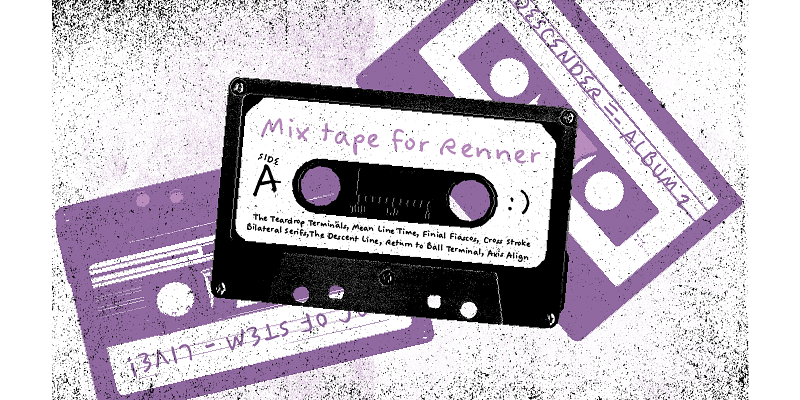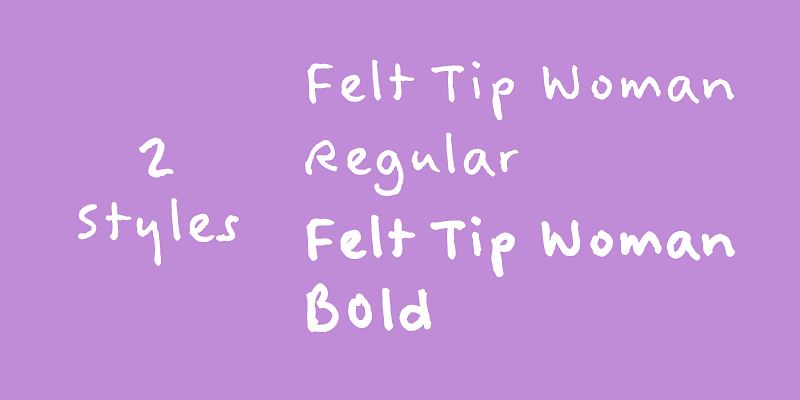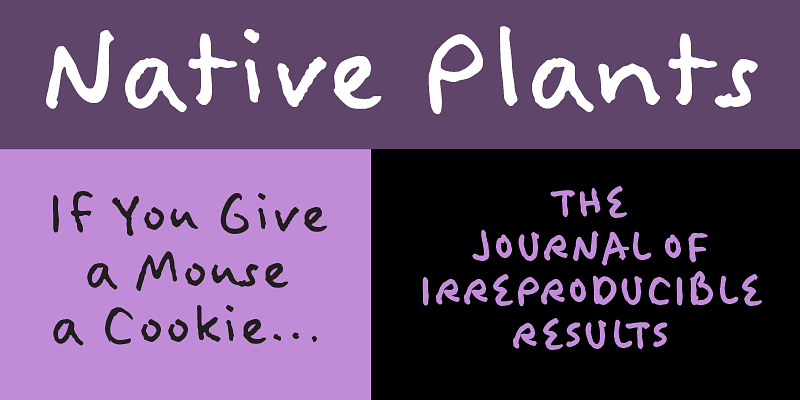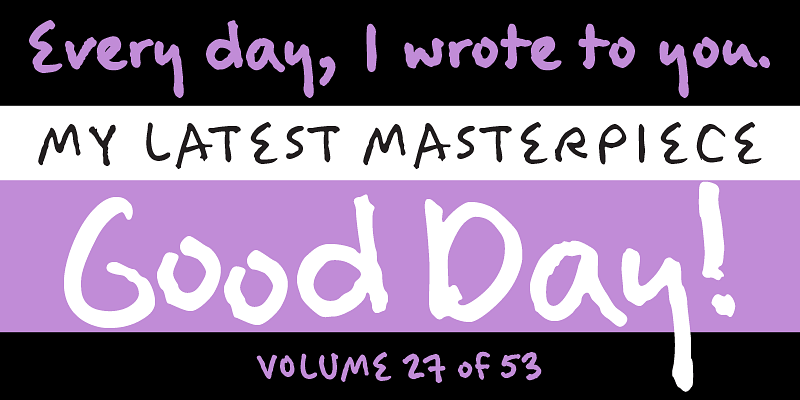
Felt Tip Woman Font
The Felt Tip Woman Font is perfect for feminine lifestyle blogs, creative journaling projects, handmade craft branding, women's empowerment campaigns, personal diary designs, artistic workshop materials, inspirational quote graphics, creative writing projects, women-focused social media content, and expressive personal communications.
What makes the Felt Tip Woman Font so exciting is its authentic combination of feminine creativity with expressive felt-tip authenticity that creates a genuine handcrafted experience perfect for projects celebrating women's artistic expression and personal storytelling. This charming typeface features natural felt-tip strokes, organic character variations, and feminine design sensibilities that perfectly capture the essence of creative journaling and authentic self-expression. The font's feminine personality and artistic authenticity make it an exceptional choice for women creators, lifestyle brands, and artistic projects seeking to communicate creativity, empowerment, and genuine feminine expression with handcrafted visual appeal.
The Felt Tip Woman Font family includes creative variations and expressive alternates, featuring multiple felt-tip textures, artistic character options, and feminine styling elements. Each variation maintains the signature handcrafted appeal while offering different levels of creative expression and artistic femininity, giving designers extensive possibilities for crafting authentic personal communications and empowering brand personalities that celebrate women's creativity.
This exceptional Felt Tip Woman Font Free Download represents the perfect feminine typography solution for creators who want to infuse their projects with authentic artistic expression and empowering feminine energy that resonates with women's creative communities. Whether you're developing lifestyle brand identities, creating personal journaling materials, or designing women's empowerment content, this versatile feminine font delivers inspiring results that connect with audiences seeking genuine creative expression and artistic authenticity.
The expressive handcrafted characteristics of Felt Tip Woman Font showcase masterful feminine typography design, with each letter featuring natural felt-tip texture variations and artistic spontaneity that enhance its authentic creative appeal and personal expression quality. The font's comprehensive character set includes uppercase and lowercase letters, numerals, creative punctuation, and artistic symbols, ensuring complete functionality for diverse feminine projects and international creative applications.
Perfectly designed for both digital and print creative applications, this inspiring font maintains its felt-tip character and feminine artistic energy across various sizes and formats. From large-scale inspirational displays to detailed personal journal pages, Felt Tip Woman Font adapts beautifully to any creative design challenge while preserving its distinctive feminine personality and authentic handcrafted charm.